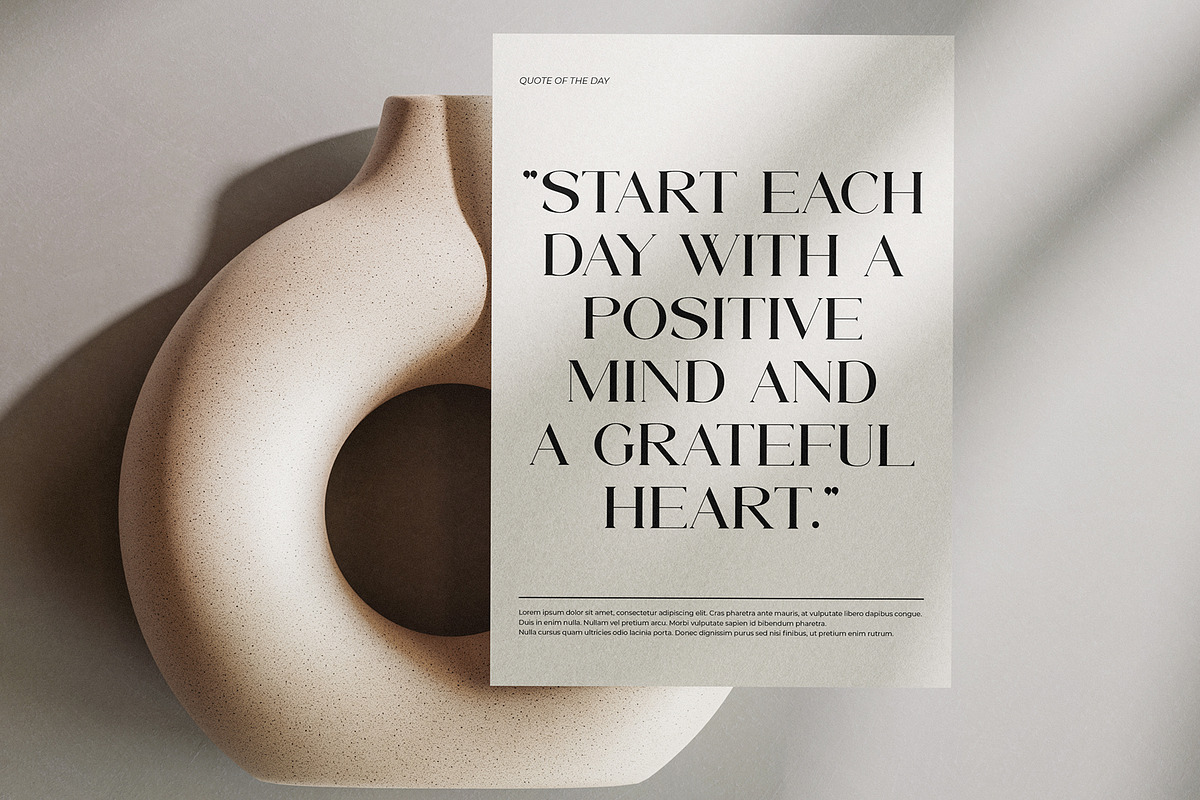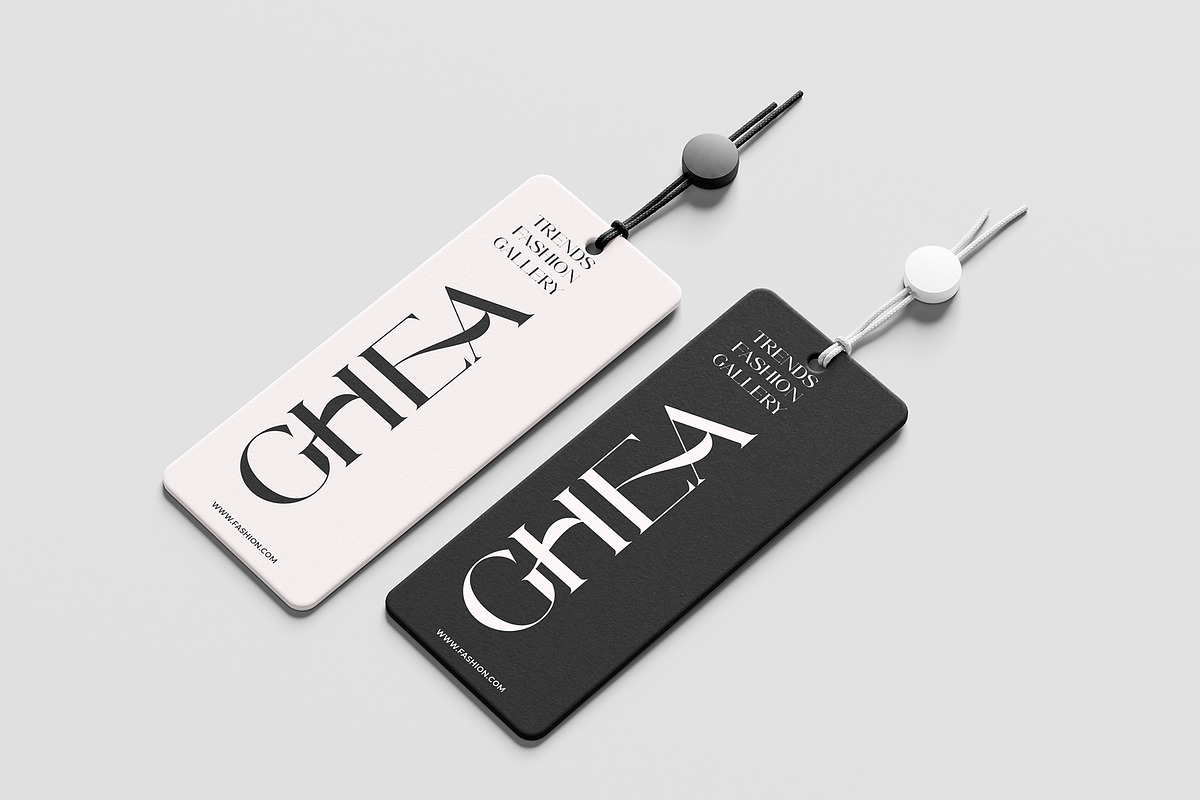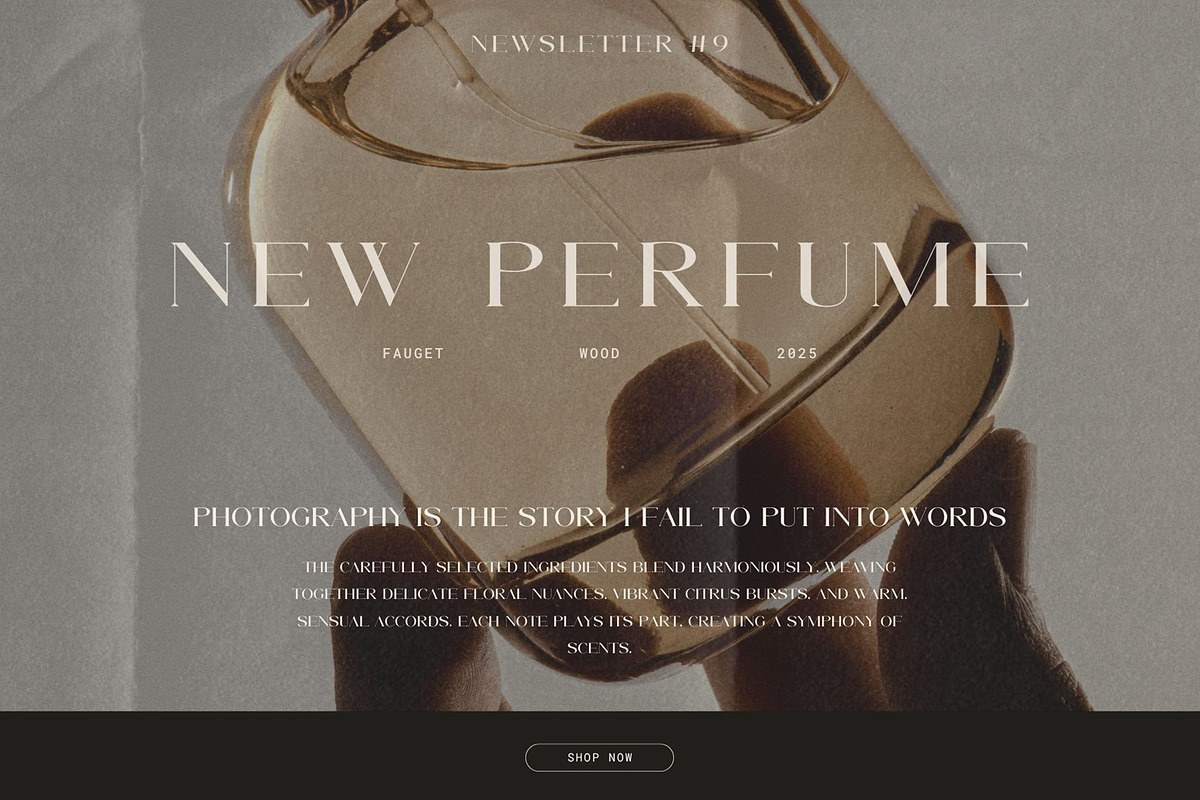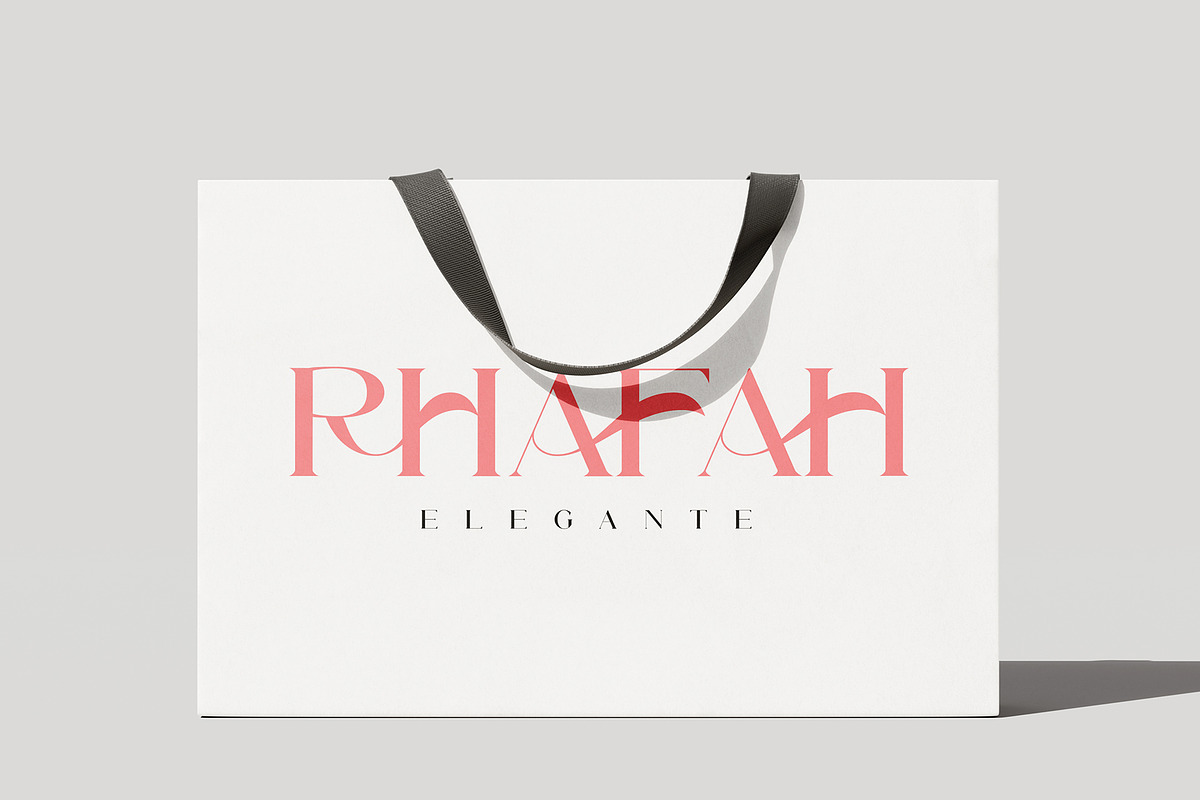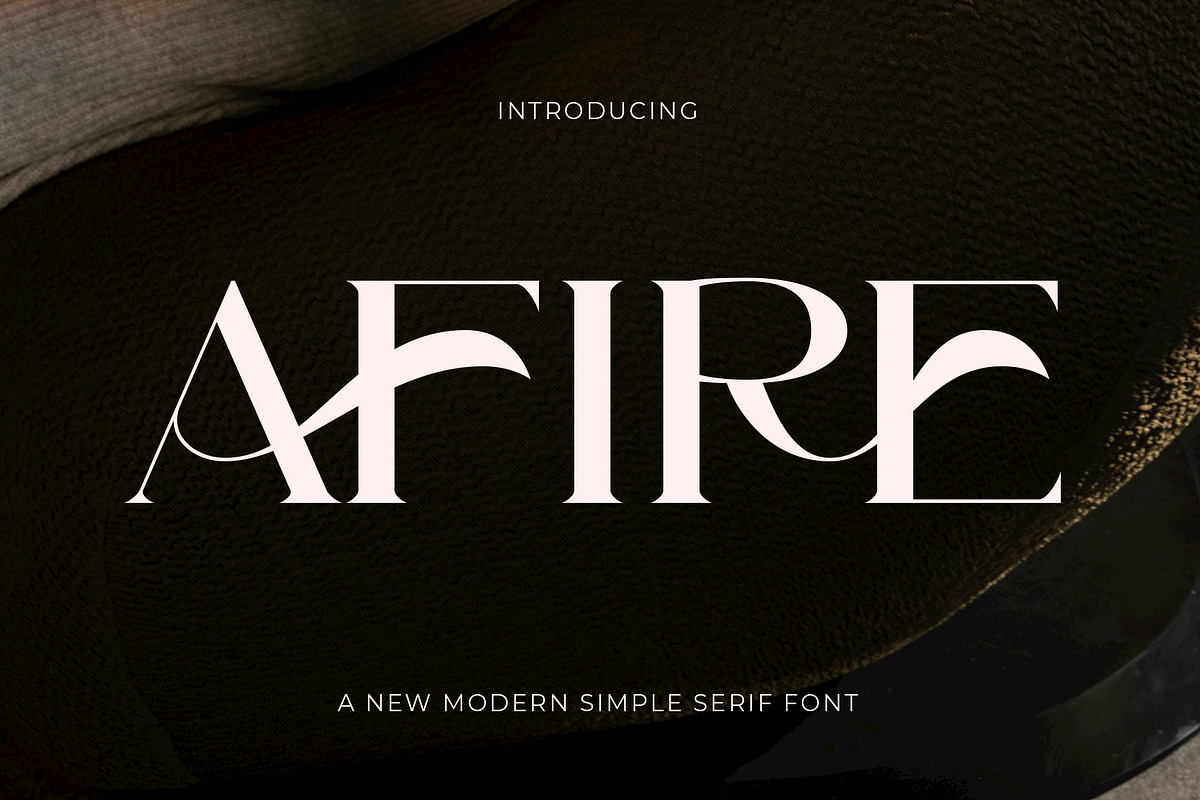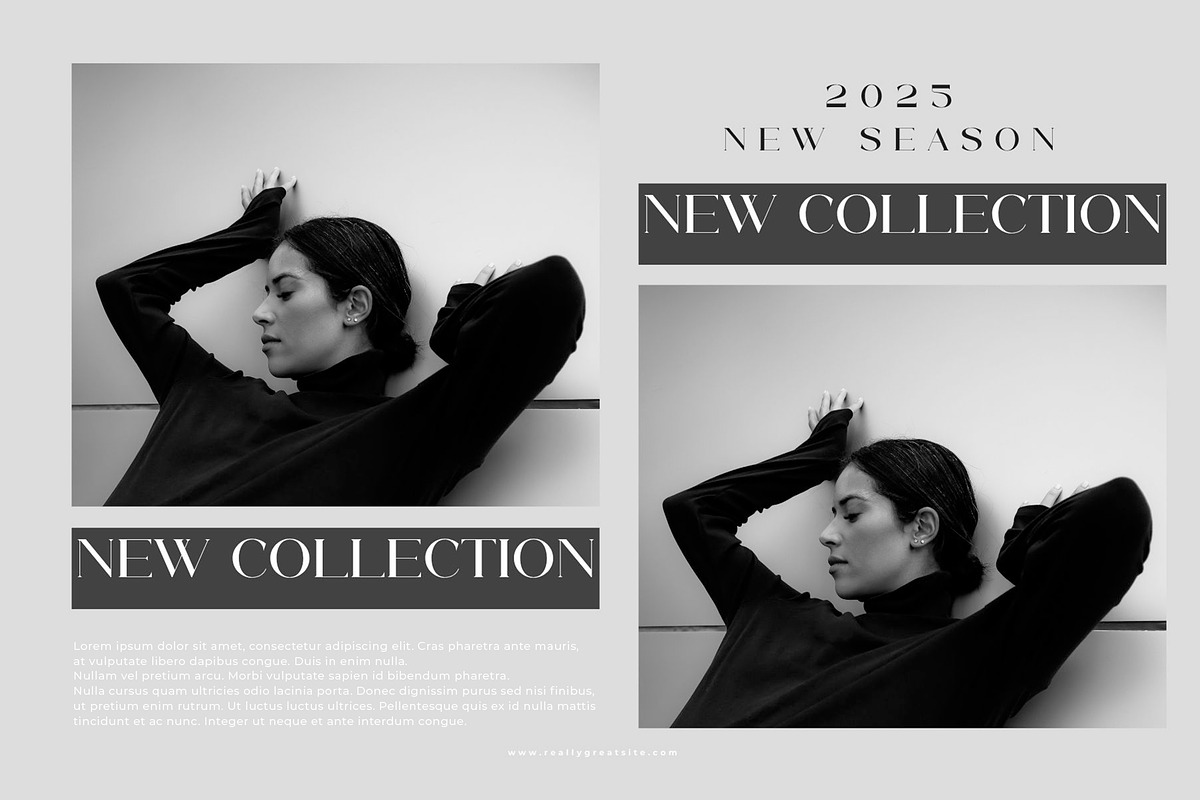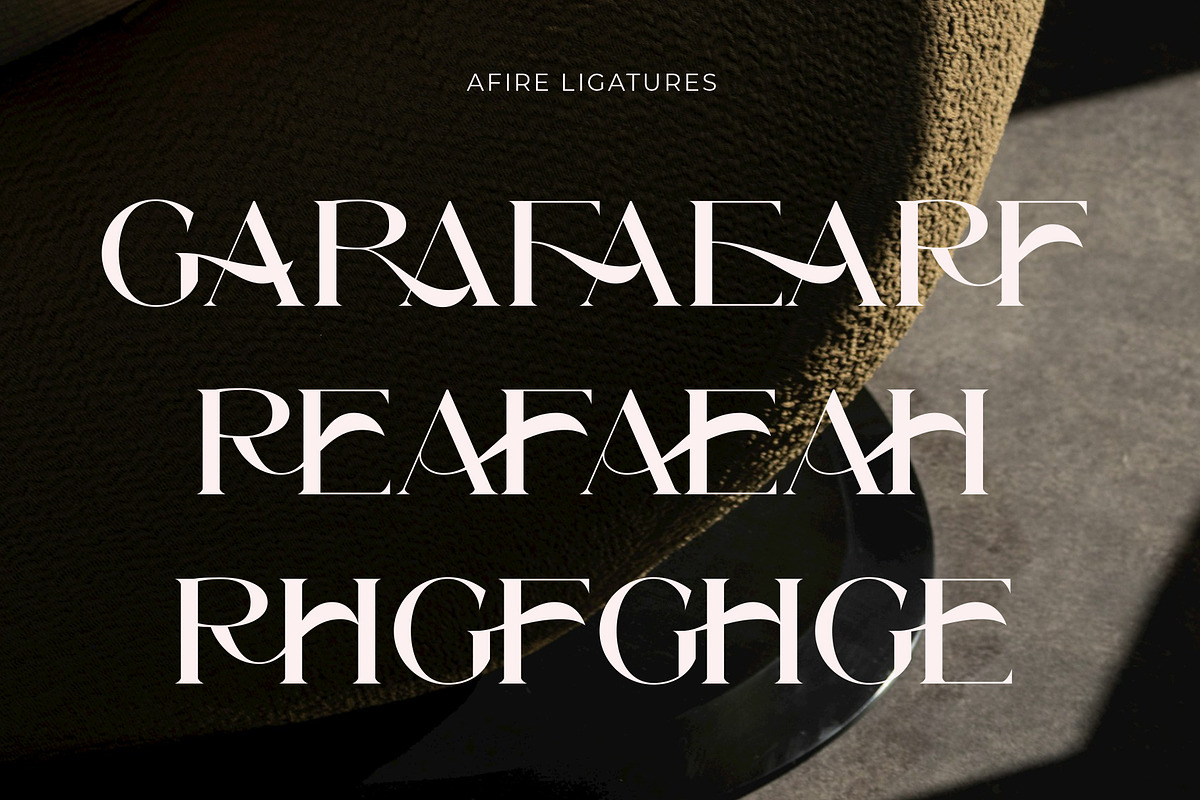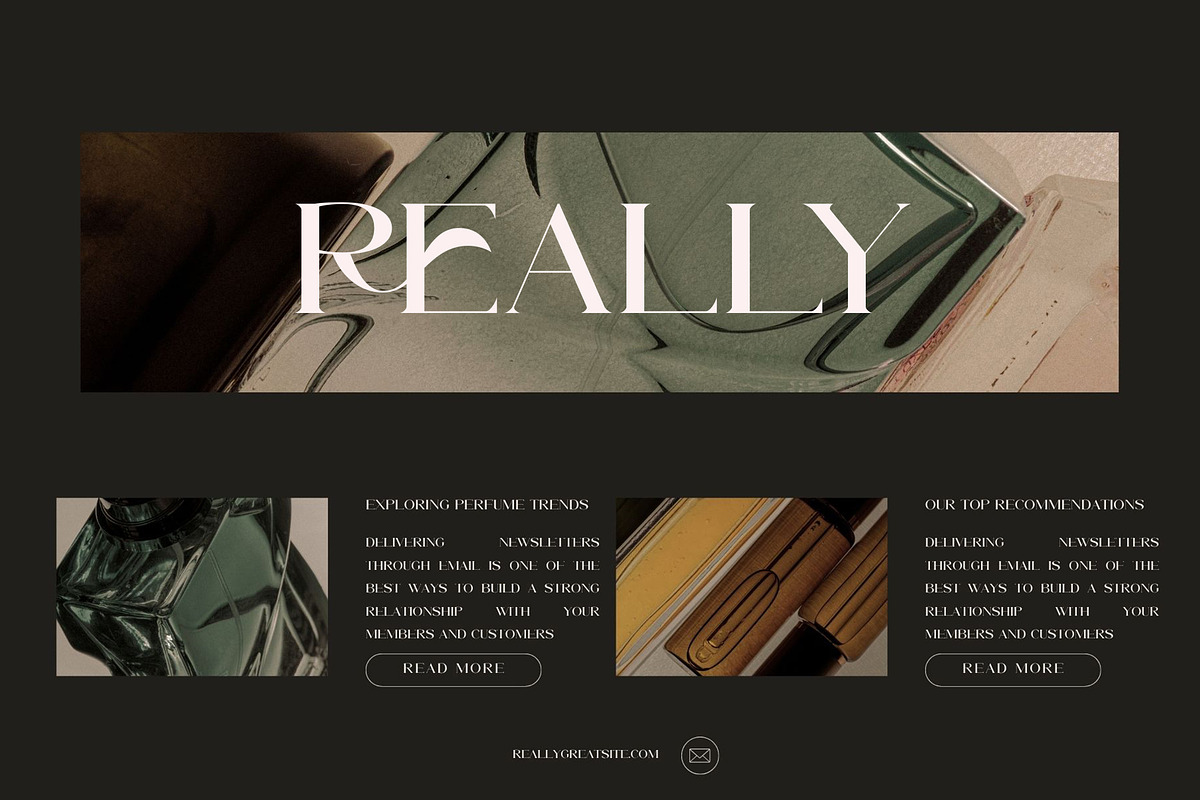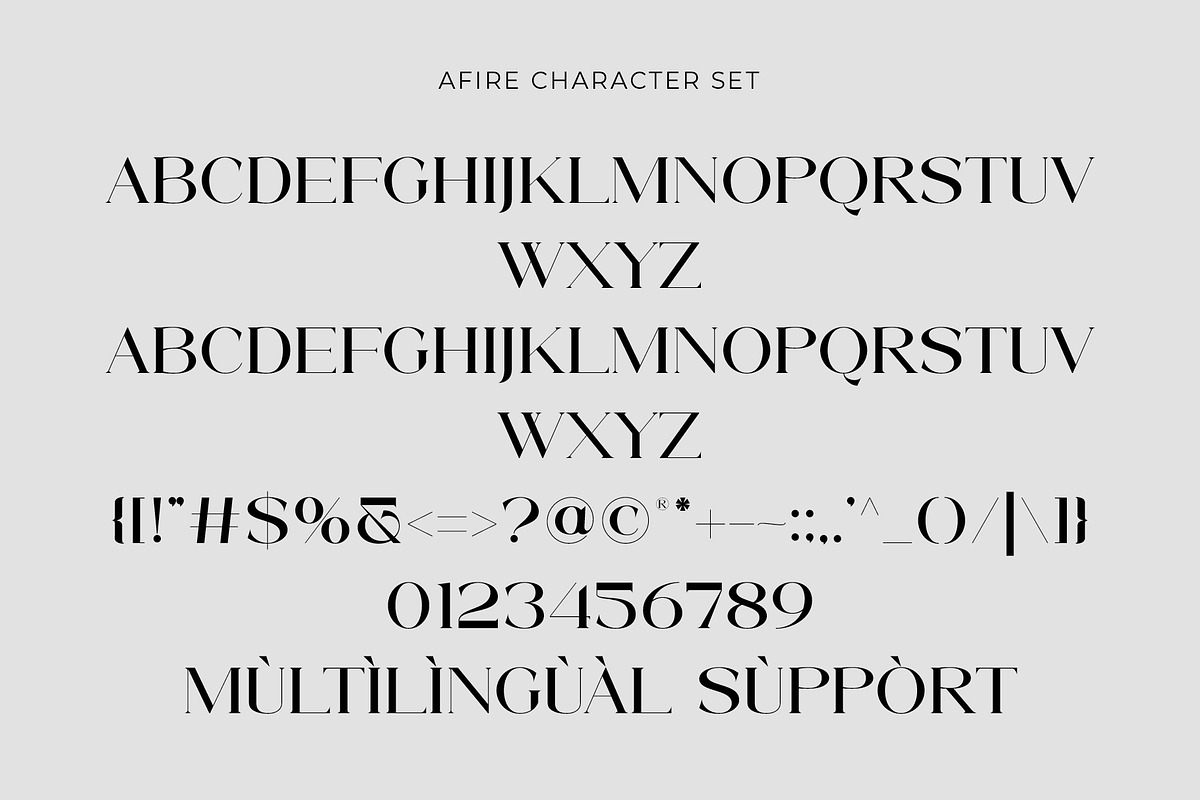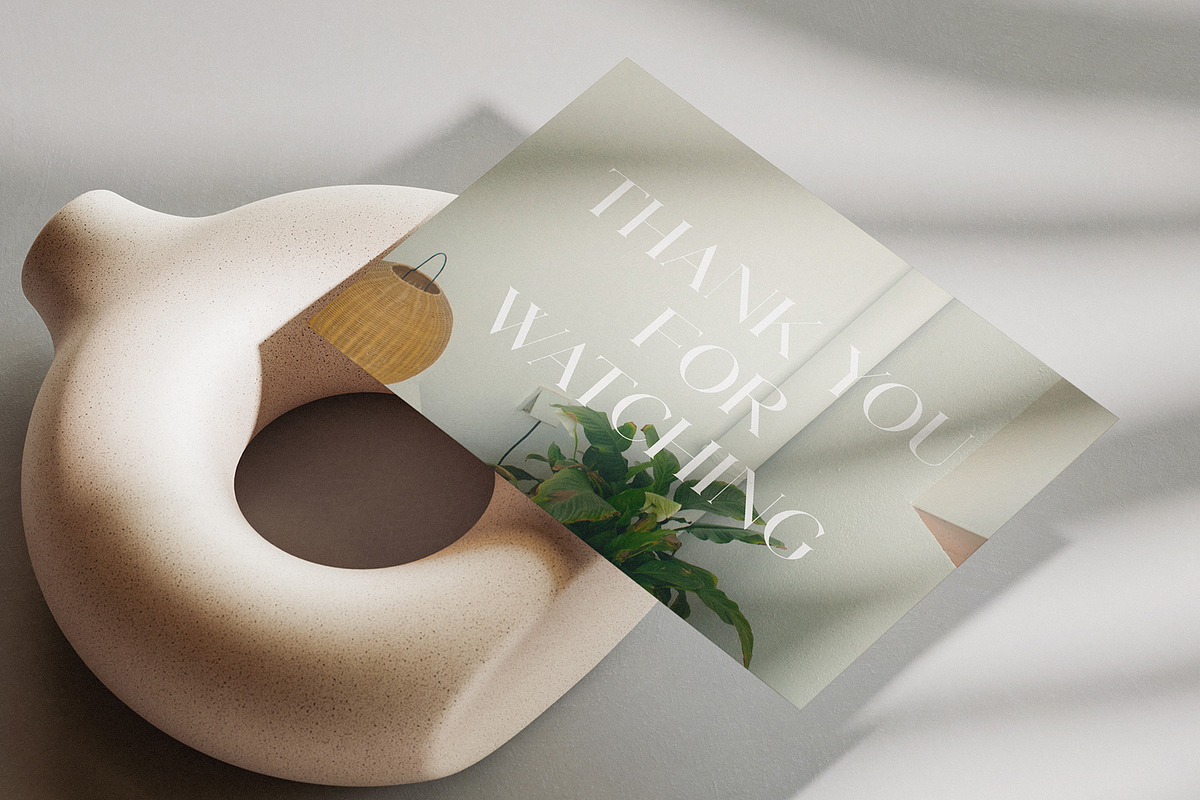
Afire - New Modern Simple Serif
Introducing Afire the minimal modern Serif, beautiful, and simple. With its modern and minimalist look, Afire brings a luxurious, classy, and clean style to your projects such as websites, modern logos, brand identities, social media quotes, wedding stationery, magazines, and more! Afire features unique and classy capital letters A to Z making Afire a beautiful font that can be customized for various projects and jobs you want. Afire is perfect for: logos, brands, wedding invitations, business cards, greeting cards, posters, magazines, social media, agenda prints, and websites. This purchase is in a ZIP file that only includes: Afire OTF Afire TTF * Afire WOFF I appreciate your interest and I hope you enjoy this font!